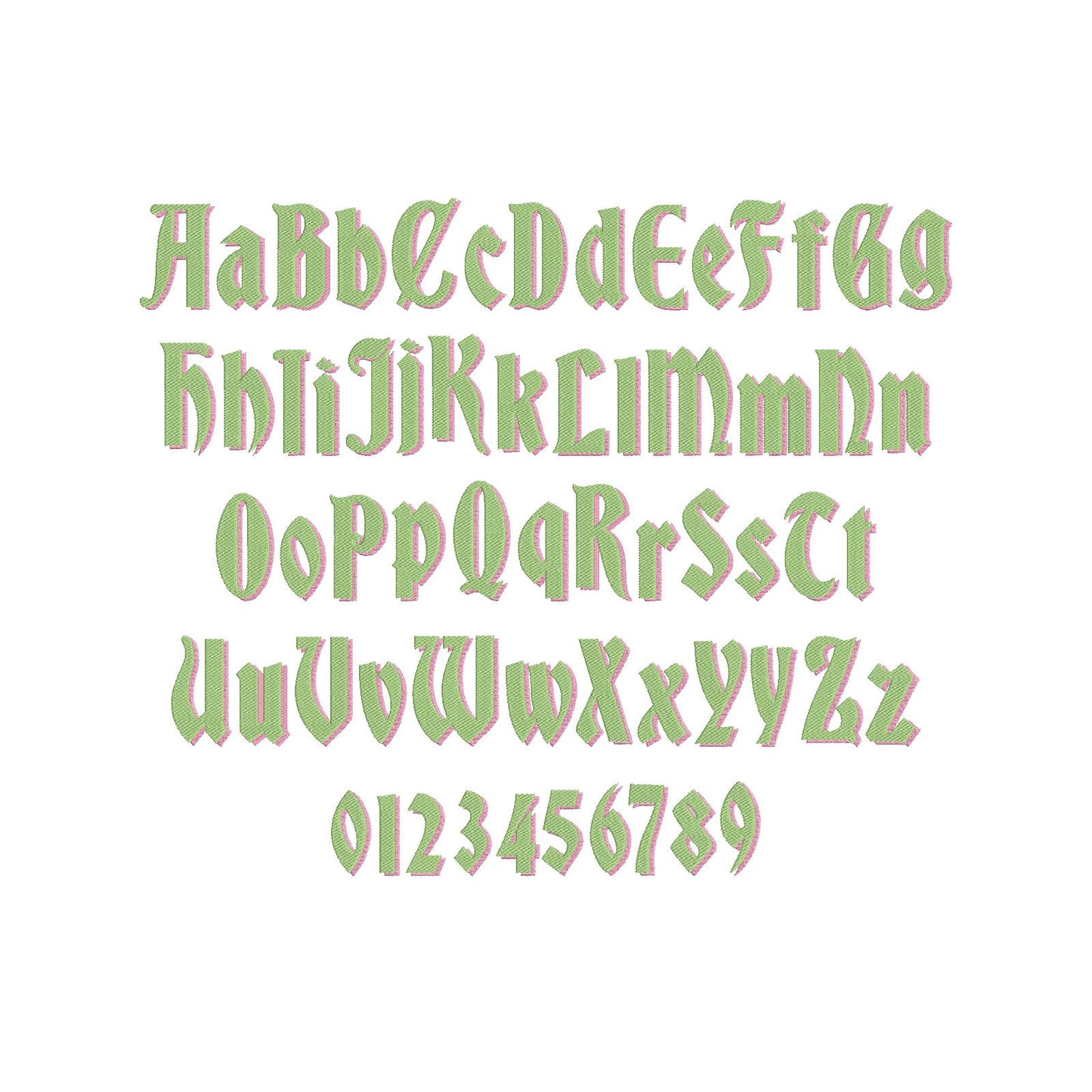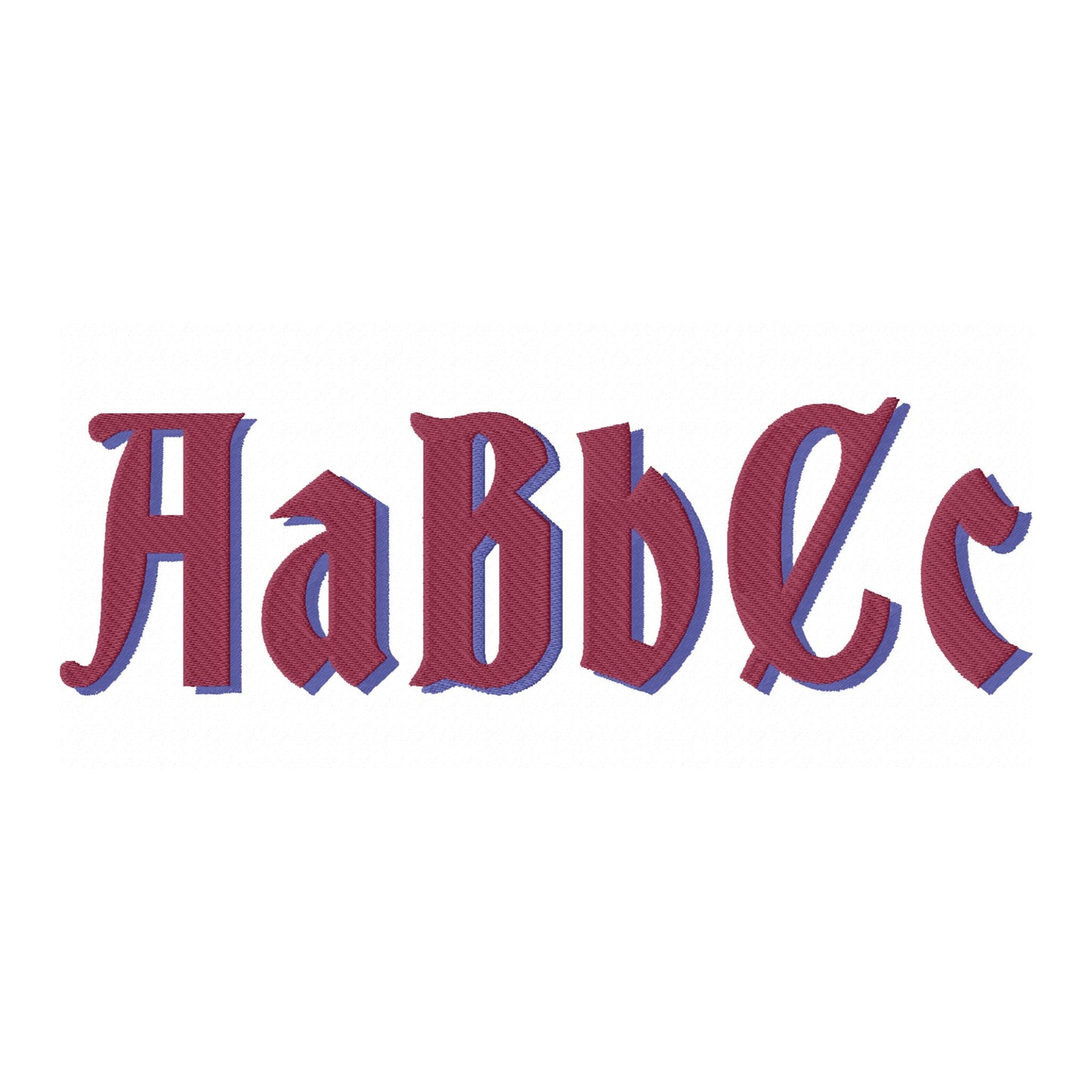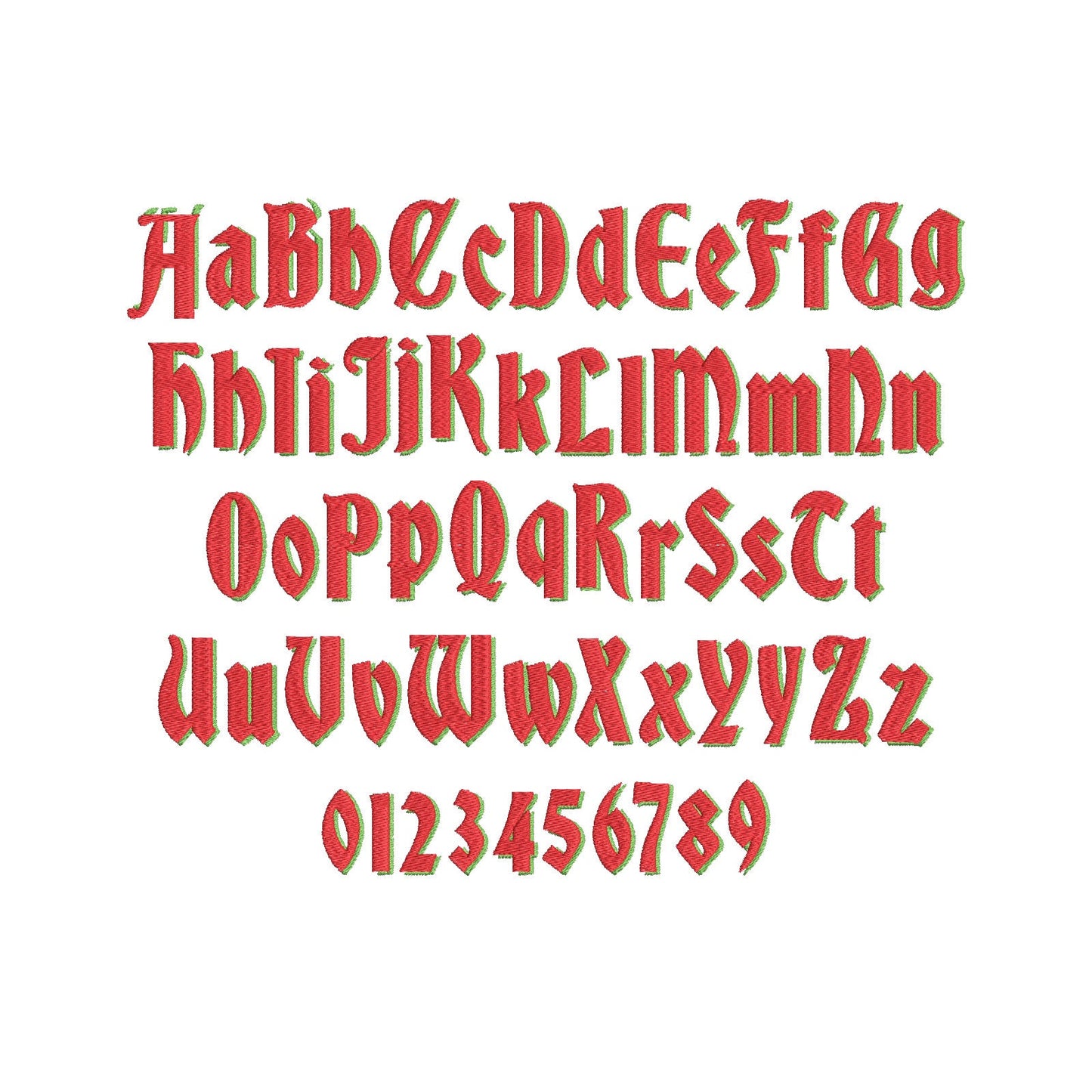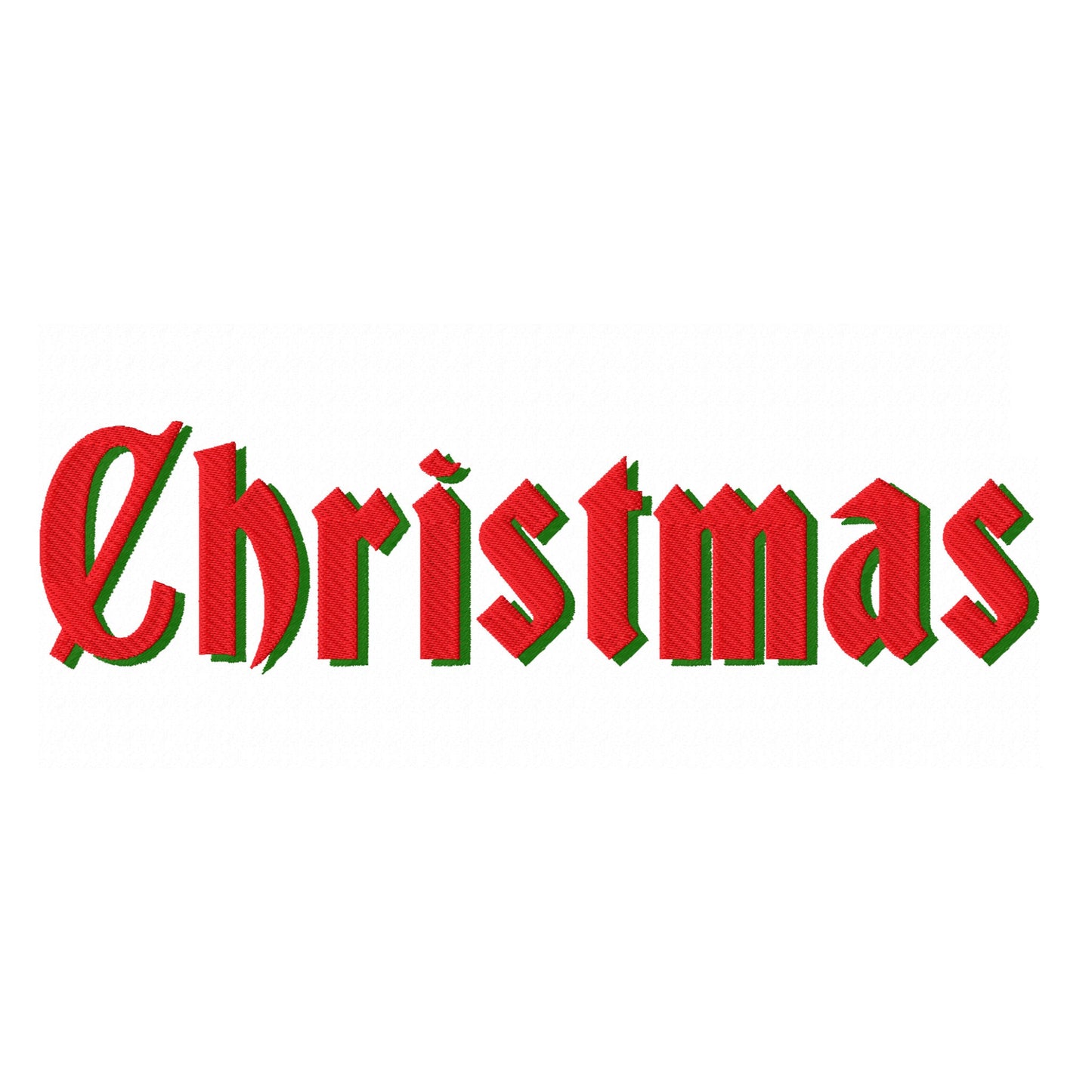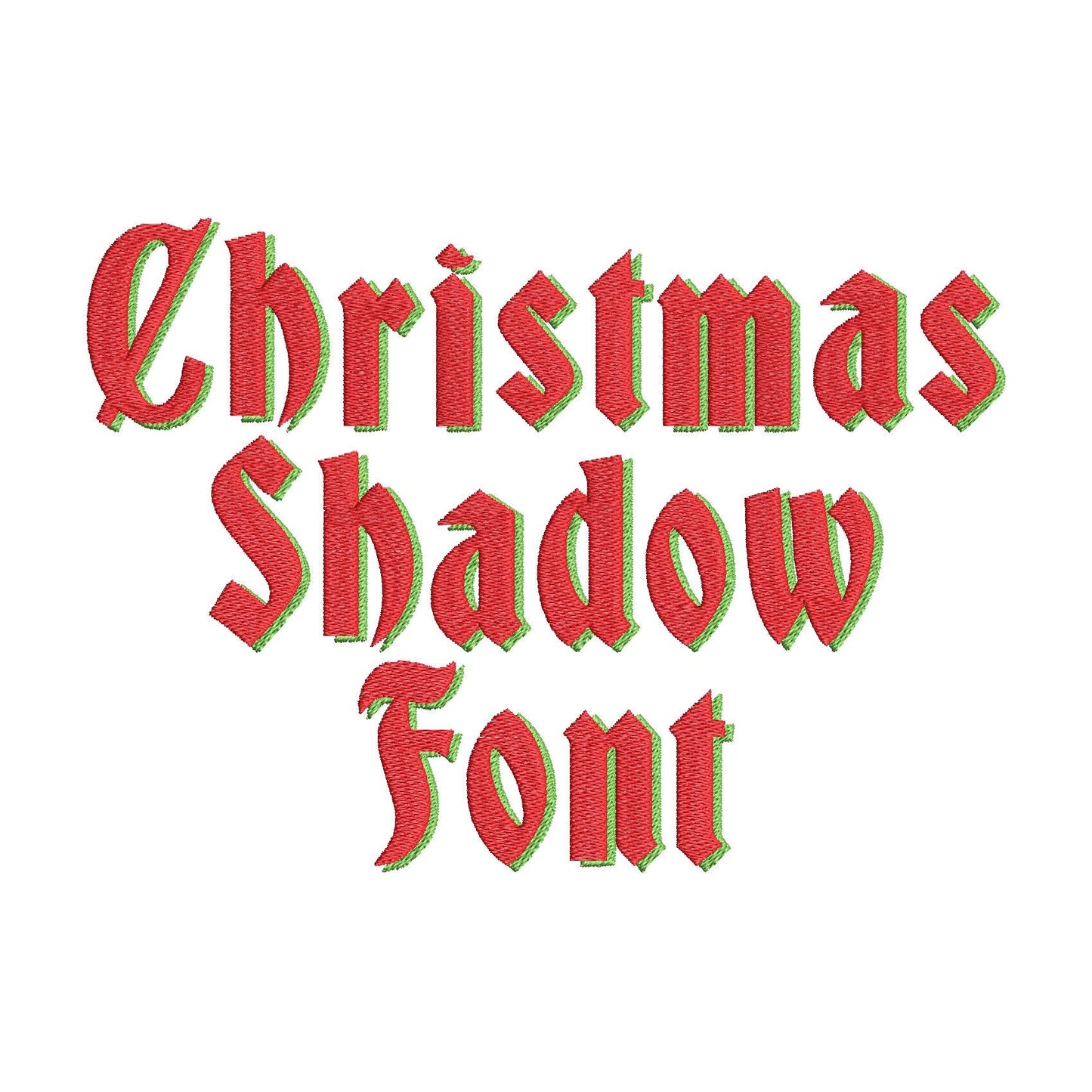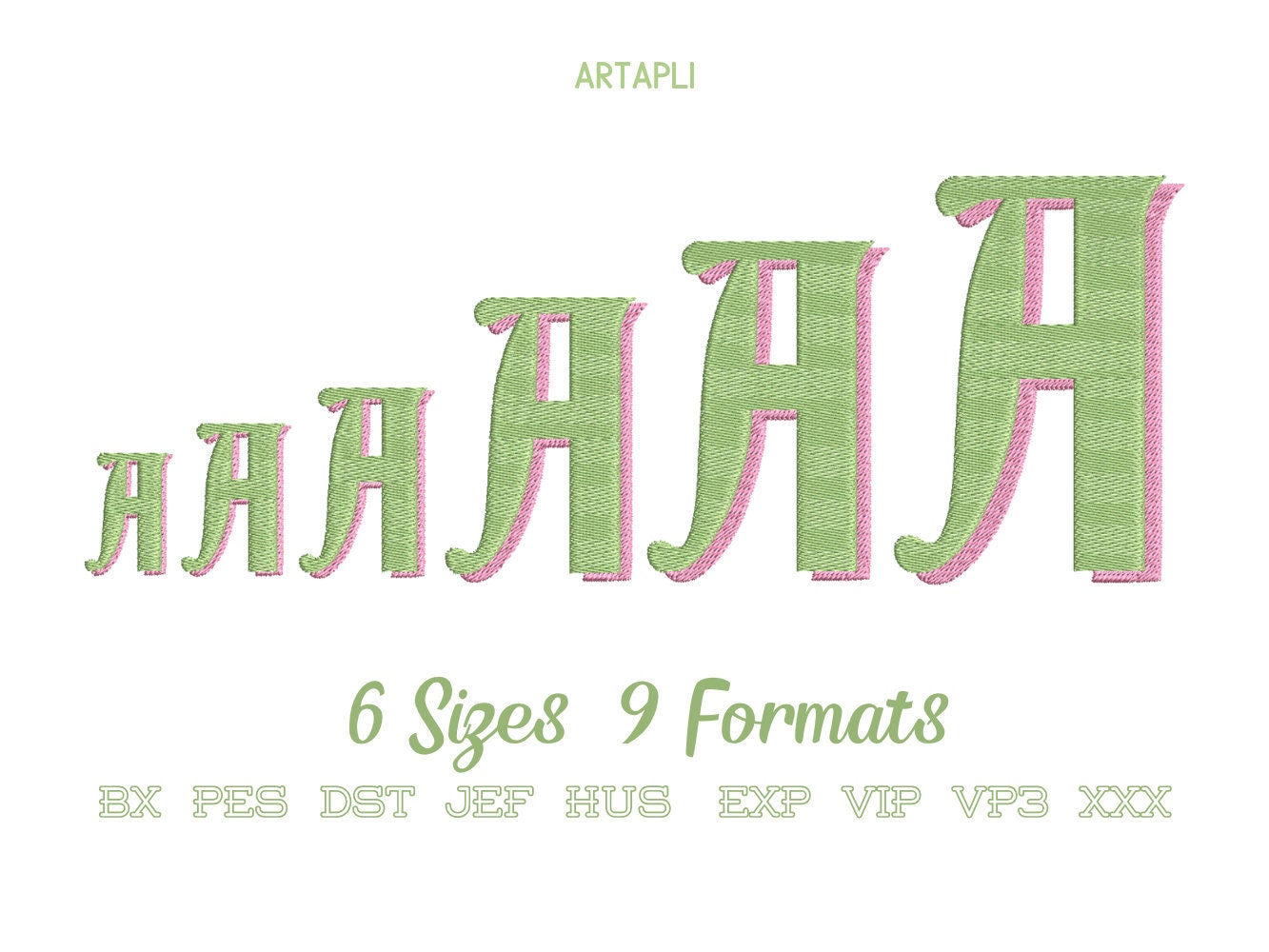
Vintage Retro Shadow Font
Or click to open the linkA vintage retro font with a shadow, in fill stitch. Stylish for sweatshirts, holiday projects, monograms and names.
Uppercase and lowercase letters and numbers 0 to 9 in seven sizes: 1.1, 1.4, 1.8, 2.2, 2.7, 3.2 and 4 inches. Each letter has a fill stitch shadow in a second color.
- Vintage retro shadow font
- Uppercase and lowercase letters, numbers 0-9